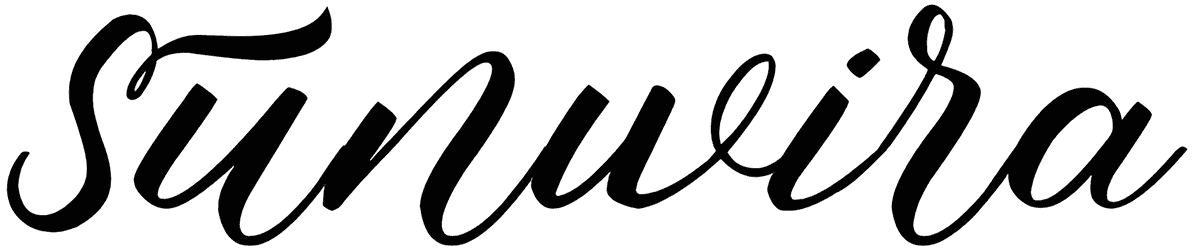
Sunwira Font
True beauty is the only term we could find to describe a magical script font like Sunwira that comes with a sophisticated flow that dances along the baseline.
If you are in the middle of designing posters, greeting cards, gift cards, business cards, and flyers that require a personalized handwritten touch, this font would give you a hand. Due to its cursive style, it brings a sense of drama, momentum, art, and vivacity to your artwork.